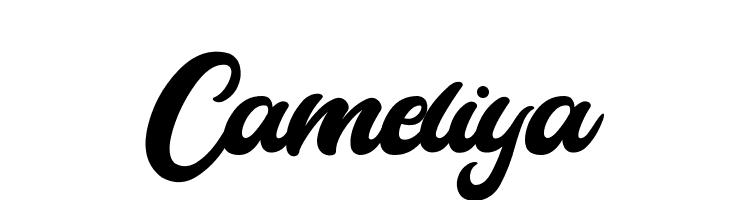
A bold, calligraphic font with high contrast and expressive strokes.
A bold, brush-style font with dynamic strokes and a modern, artistic flair.
A bold, brush-style font with dynamic, expressive strokes.
A bold, slanted script font with a dynamic and textured appearance.
A bold, flowing script font with elegant curves and a cohesive style.